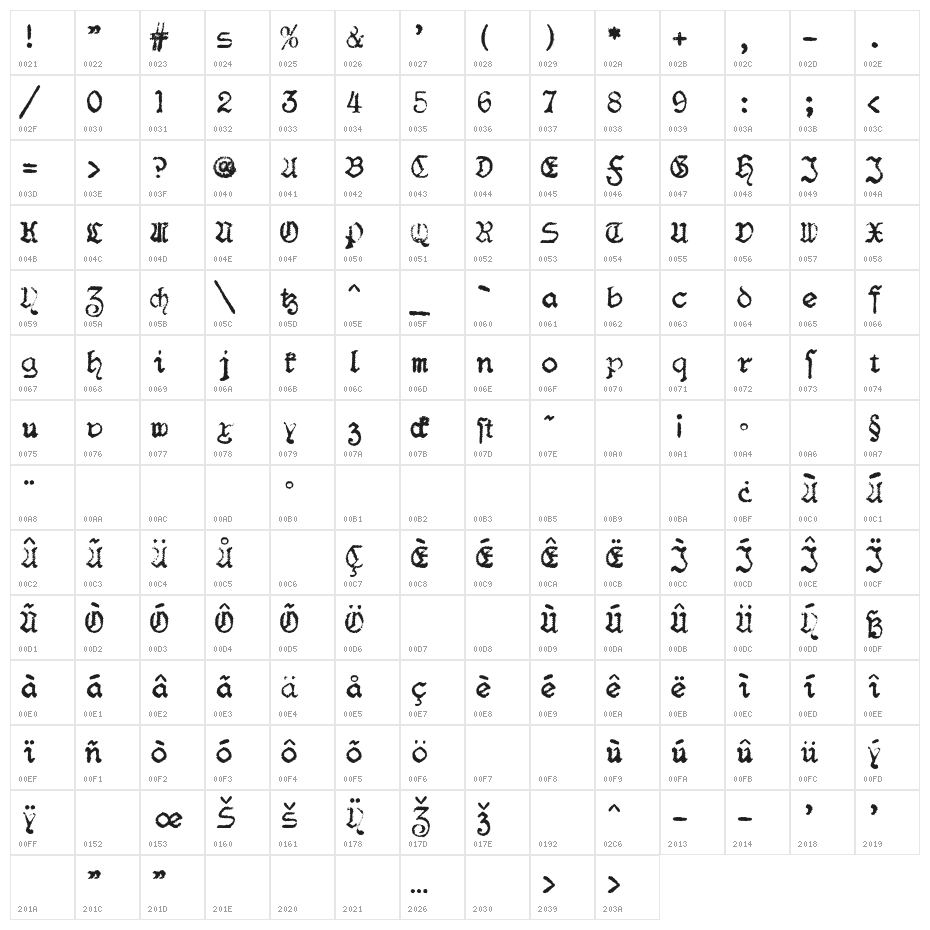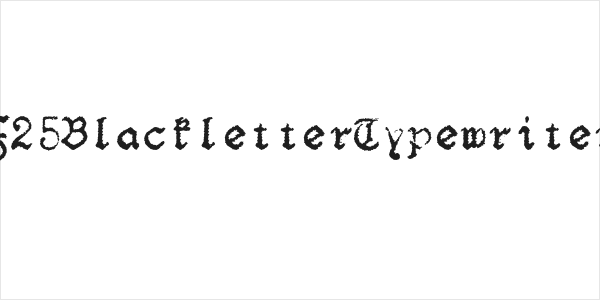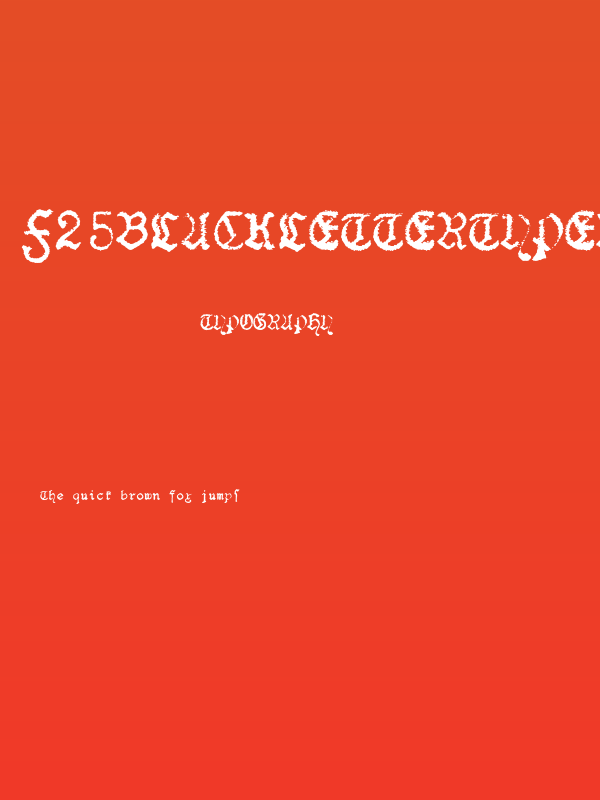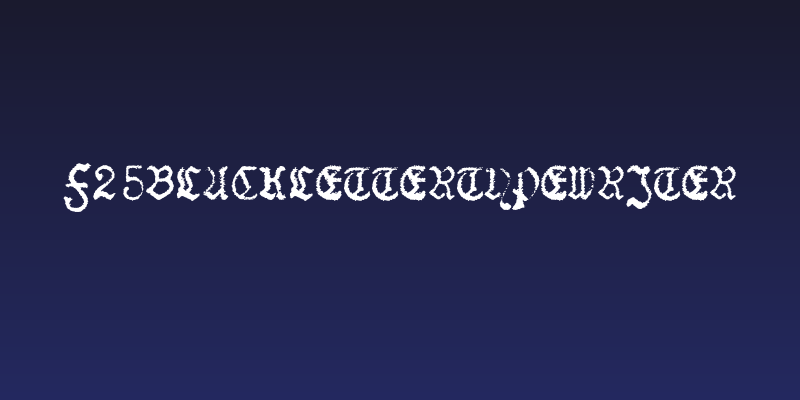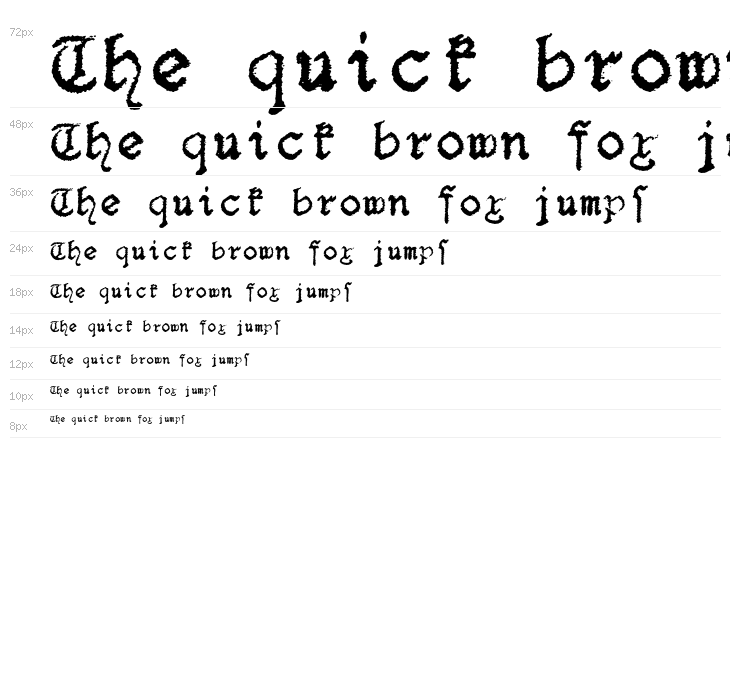
F25BlackletterTypewriter Font
F25BlackletterTypewriter Description
This font exhibits a distinct blackletter style with a typewriter-like texture, combining the historical elegance of blackletter with a rough, mechanical finish. The uppercase letters are ornate, featuring sharp angles and dramatic flourishes, while the lowercase letters maintain a more subdued yet still intricate design. The numerals are bold and consistent with the overall aesthetic, providing a cohesive look across all characters. Special characters are included, maintaining the same stylistic elements, making this font versatile for various uses. The texture gives it a vintage, worn appearance, adding character and depth.
Overall StyleVintage
Proposed ProjectsIdeal for vintage-themed designs, historical documents, posters, and artistic projects requiring a classic yet textured look.